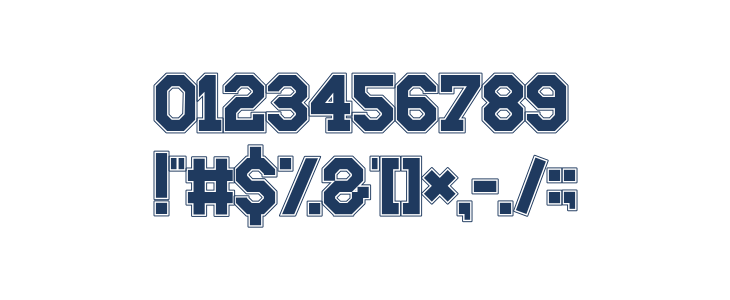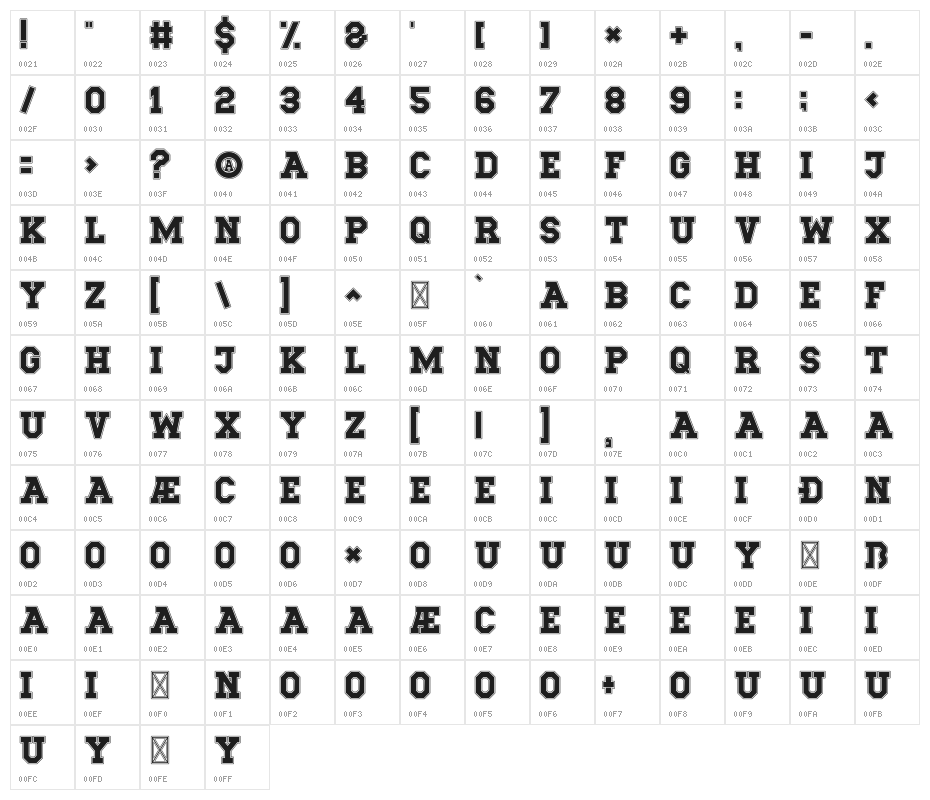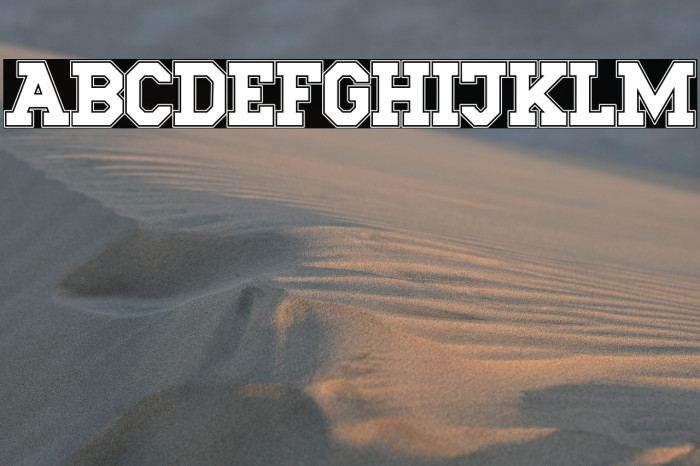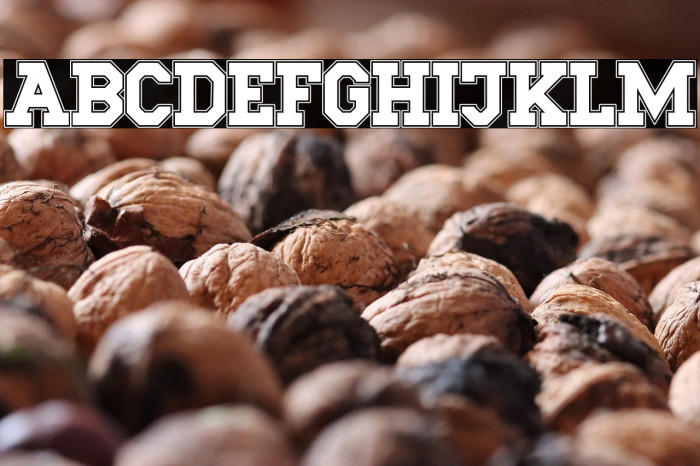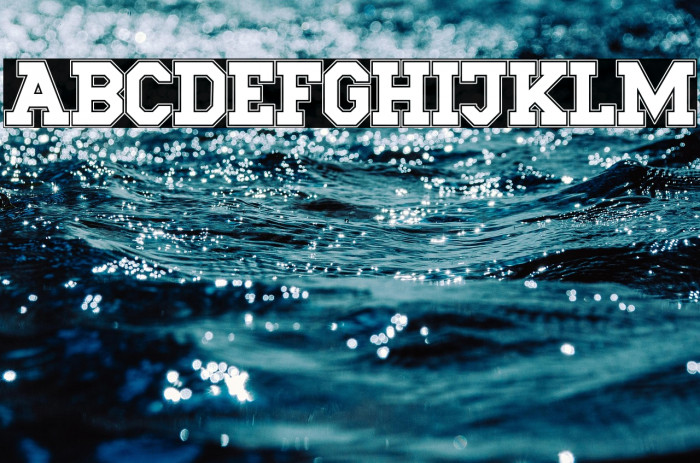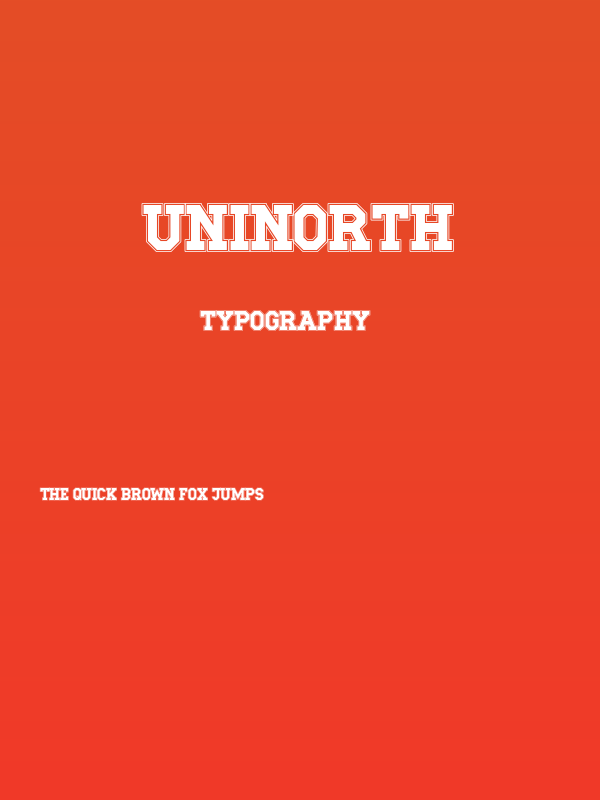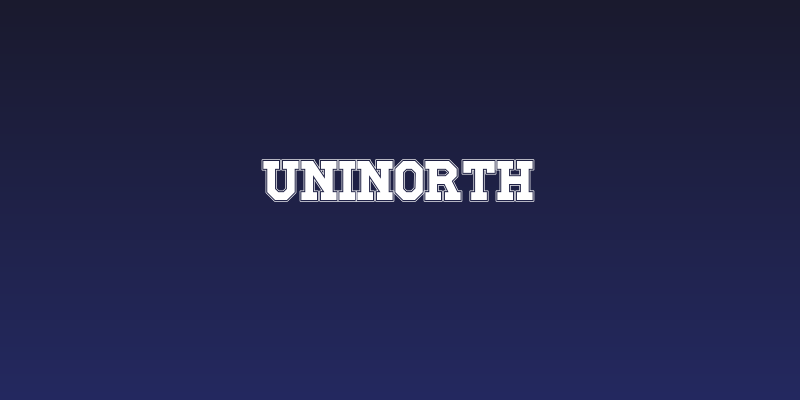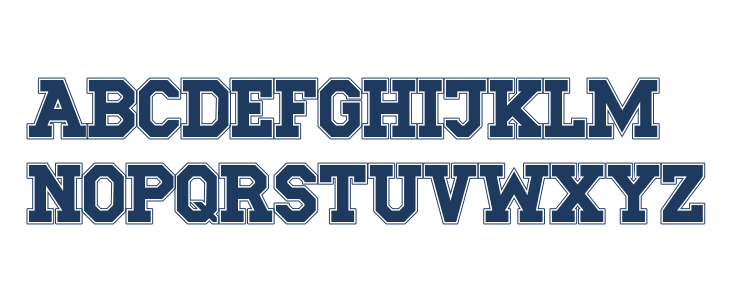
UNINorth Font
UNINorth Description
This font features a bold, blocky design with a strong presence, ideal for making a statement. The characters are outlined with a thick border, giving them a three-dimensional effect. The uppercase letters are uniform in height, with sharp angles and clean lines that convey a sense of strength and stability. The numbers and special characters maintain the same bold style, ensuring consistency across all elements. This font's design is reminiscent of collegiate or sports team lettering, making it perfect for projects that require a bold and impactful look.
| Proposed Projects | Perfect for sports team logos, event posters, and any project needing a strong, bold typeface. |